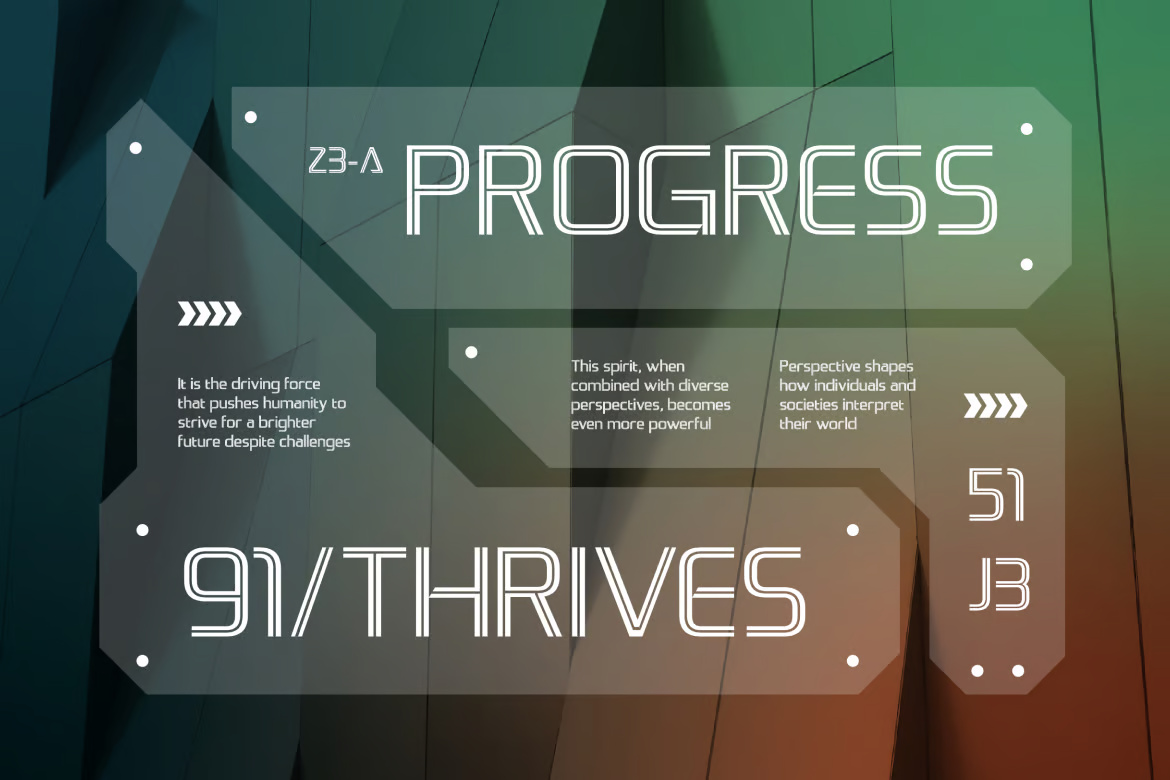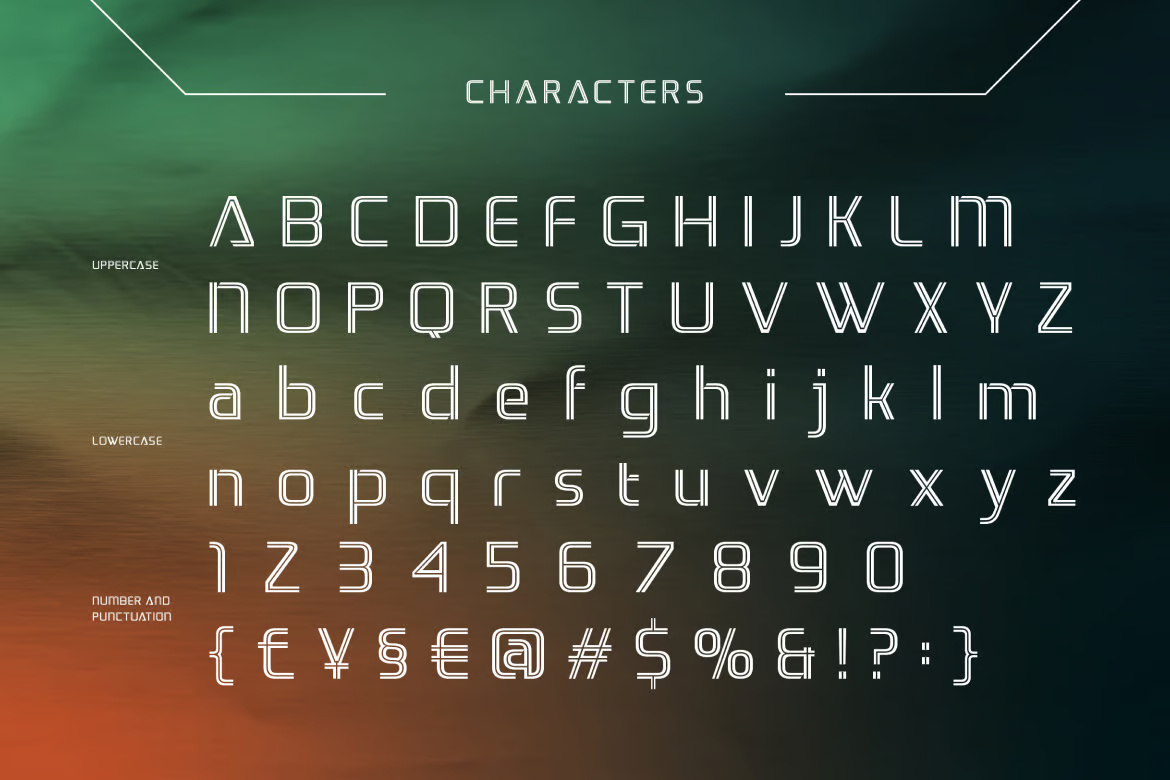
Thryon Cyberpunk Typeface Font
Elevate your designs with Thryon Cyberpunk Typeface Font, a futuristic typeface that blends sci-fi aesthetics with a bold cyberpunk edge. Featuring sleek geometric lines, minimal yet experimental letterforms, and a high-tech vibe, Thryon is perfect for digital interfaces, sci-fi movie posters, video game covers, and forward-thinking branding projects. Its clean structure and dynamic curves evoke the atmosphere of neon-lit cities and advanced technologies, making it the ideal choice for designs that aim to be bold, modern, and visionary.